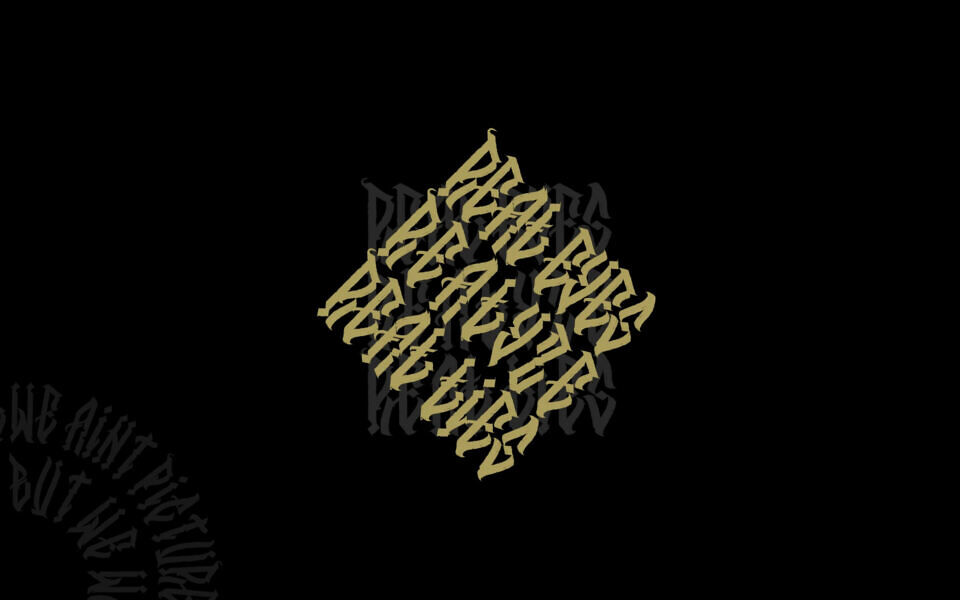
Gothic 129 is a free modern blackletter font designed by Vadim Bashlakov, blending traditional Gothic calligraphy with contemporary urban flair.
Its sharp, angular strokes and bold presence make it ideal for impactful headlines, logos, and editorial designs. Gothic 129 is available in OpenType format with a standard commercial license.
This versatile typeface brings a dramatic, expressive edge to any creative project.